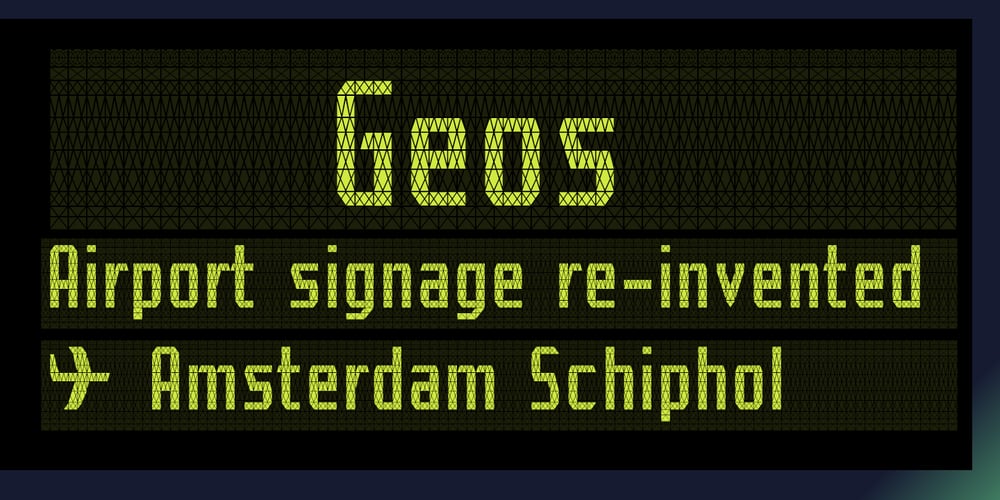
Geos
Geos font
Geos Font Family was designed by Jeffrey Visser and published by FineDisplayType. Geos contains 2 styles and family package options. FDT Geos has re-invented airport signage. A stylish font with modern features display tech couldn’t afford. FDT Geos features ligatures, fractions, numerals, stylistic sets, and even some symbols!